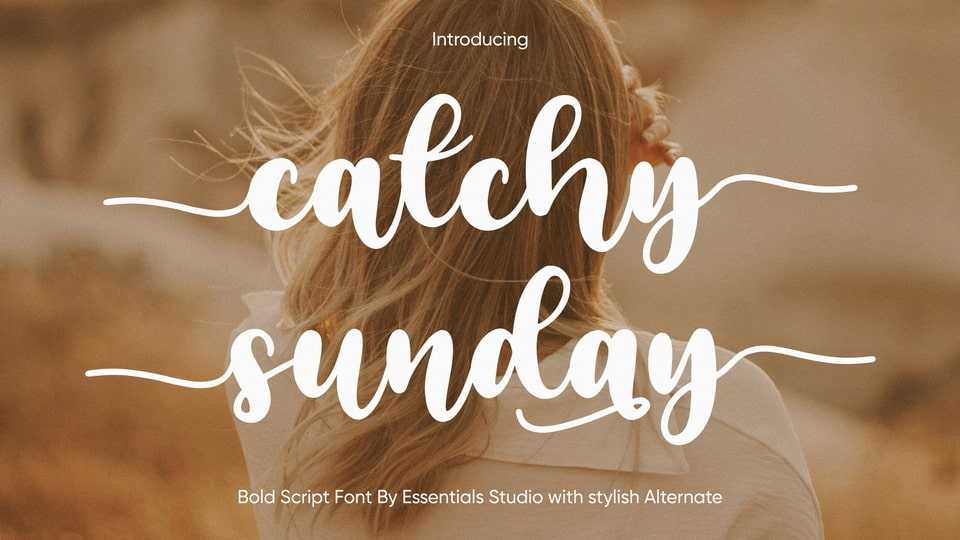
Download Catchy Sunday font, a dazzling Bold script font. This font is neatly crafted and highly detailed. Whatever the topic, this font will be a wonderful asset to your font library, as it has the potential to enhance any creation.
Designer: Essentials Studio